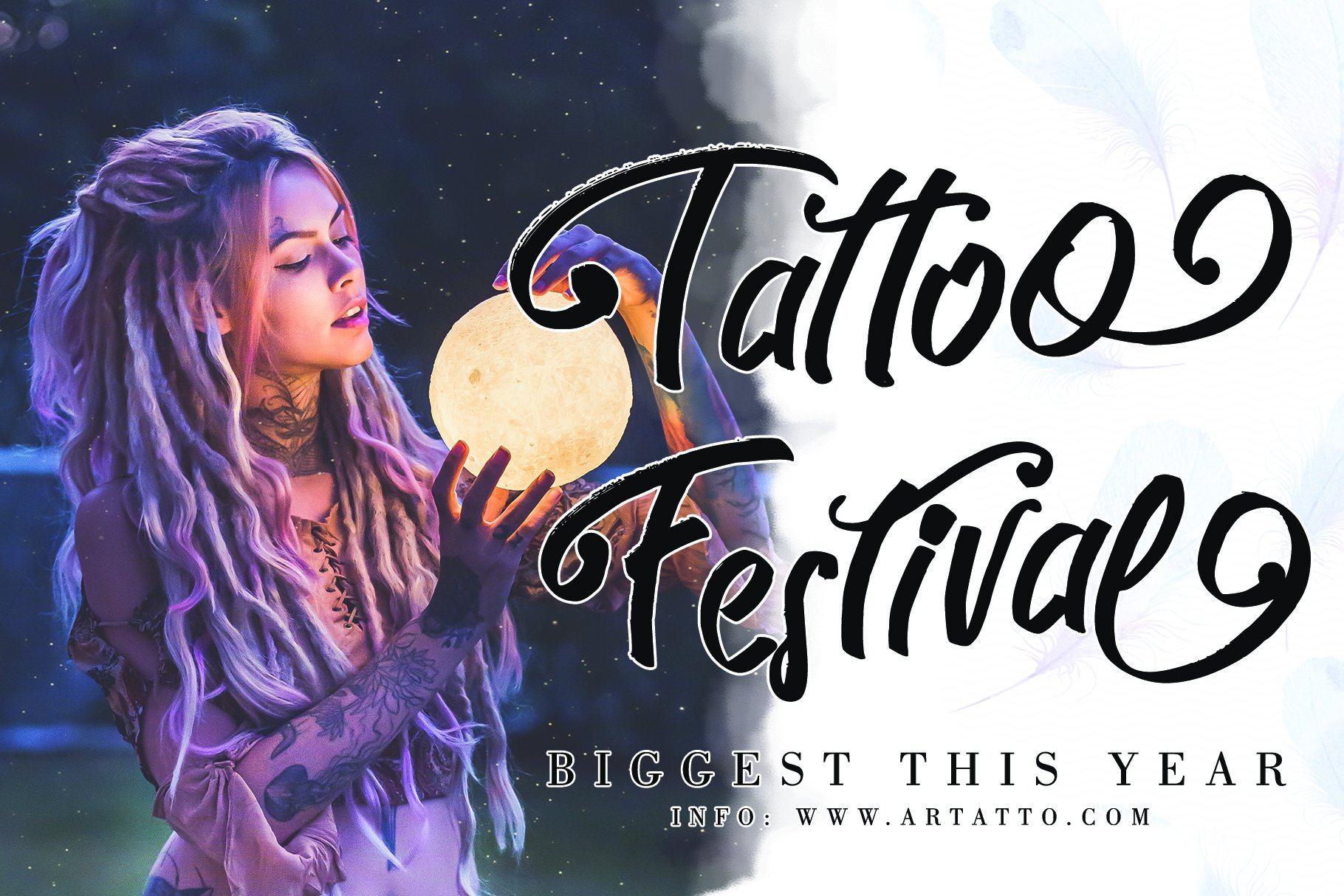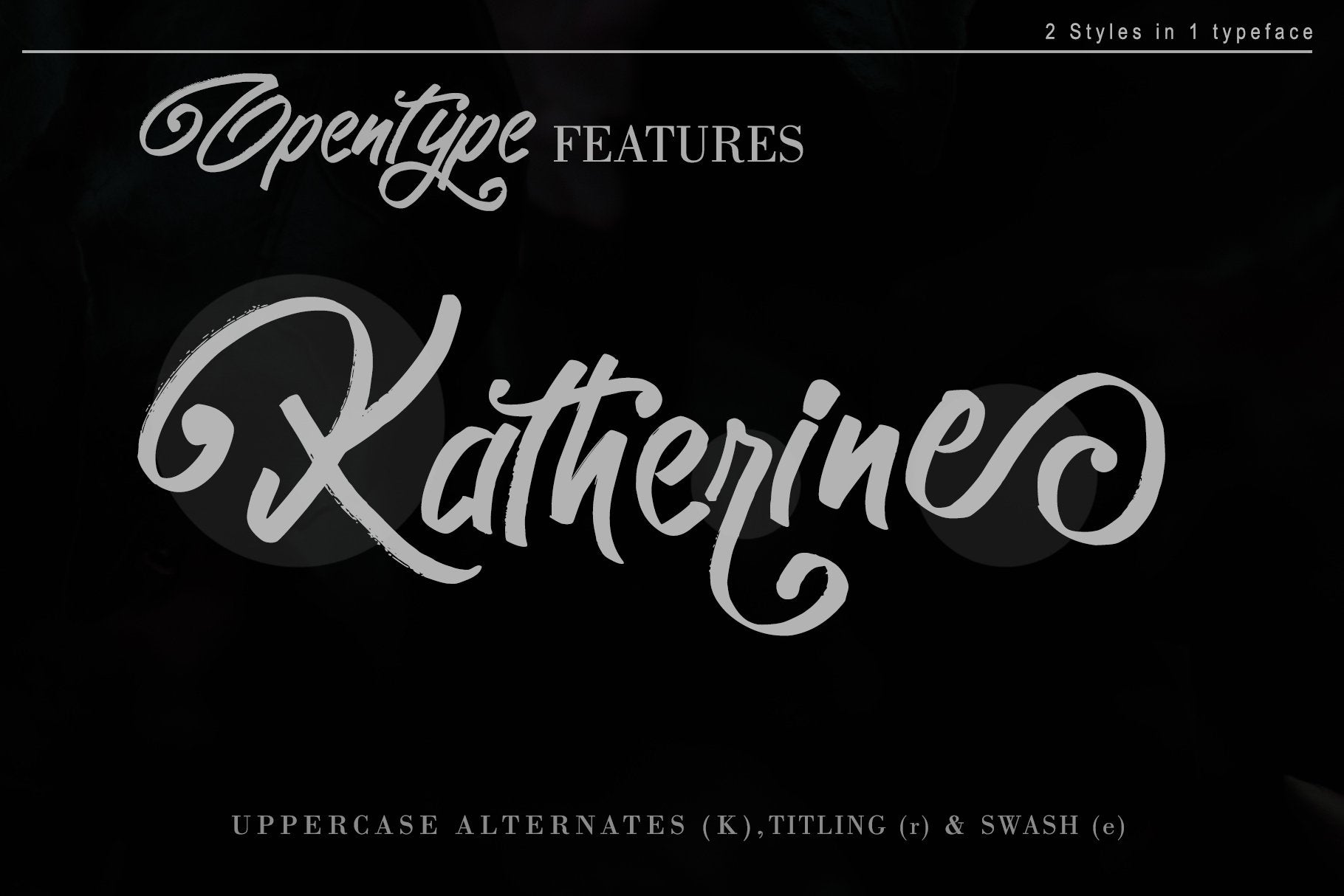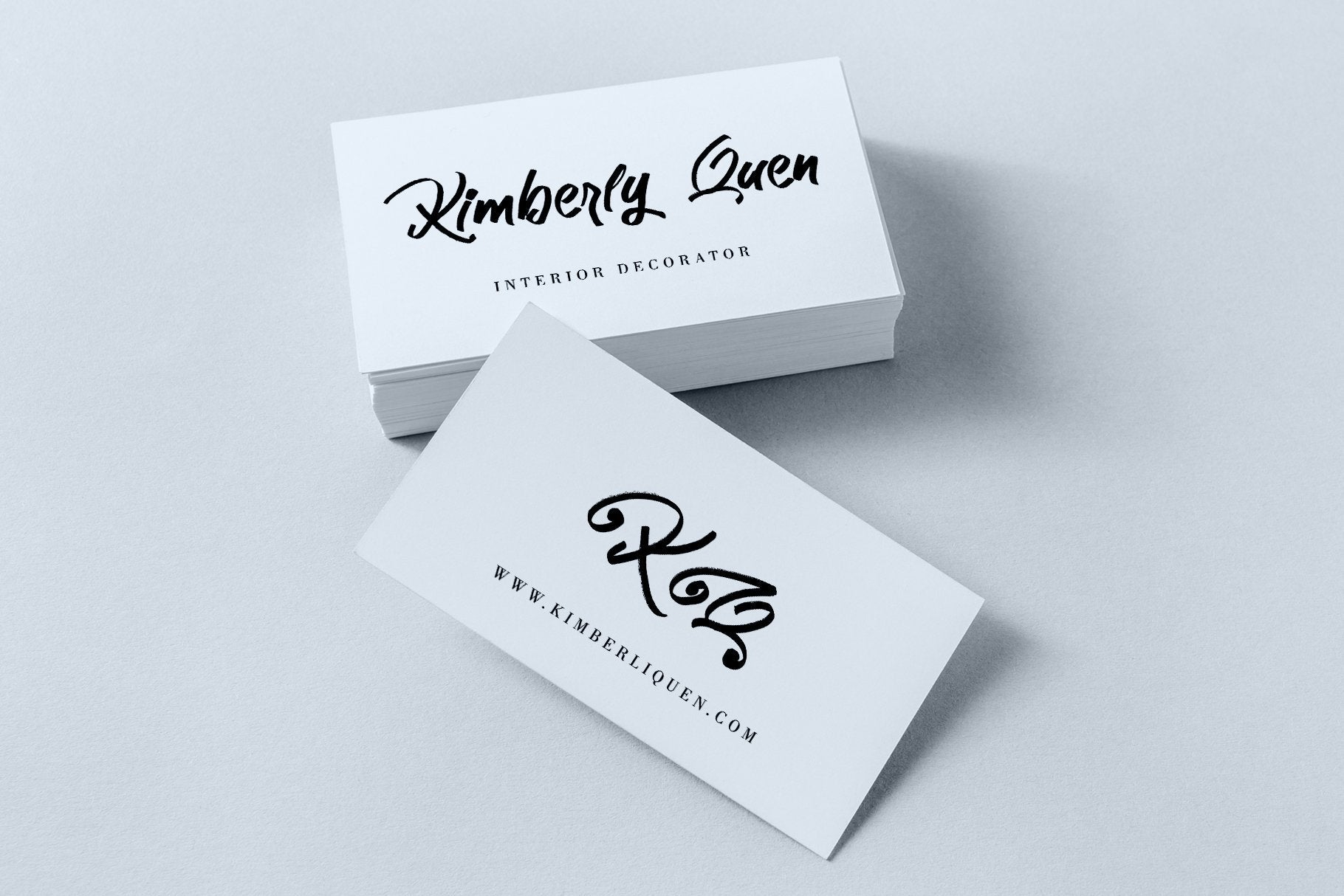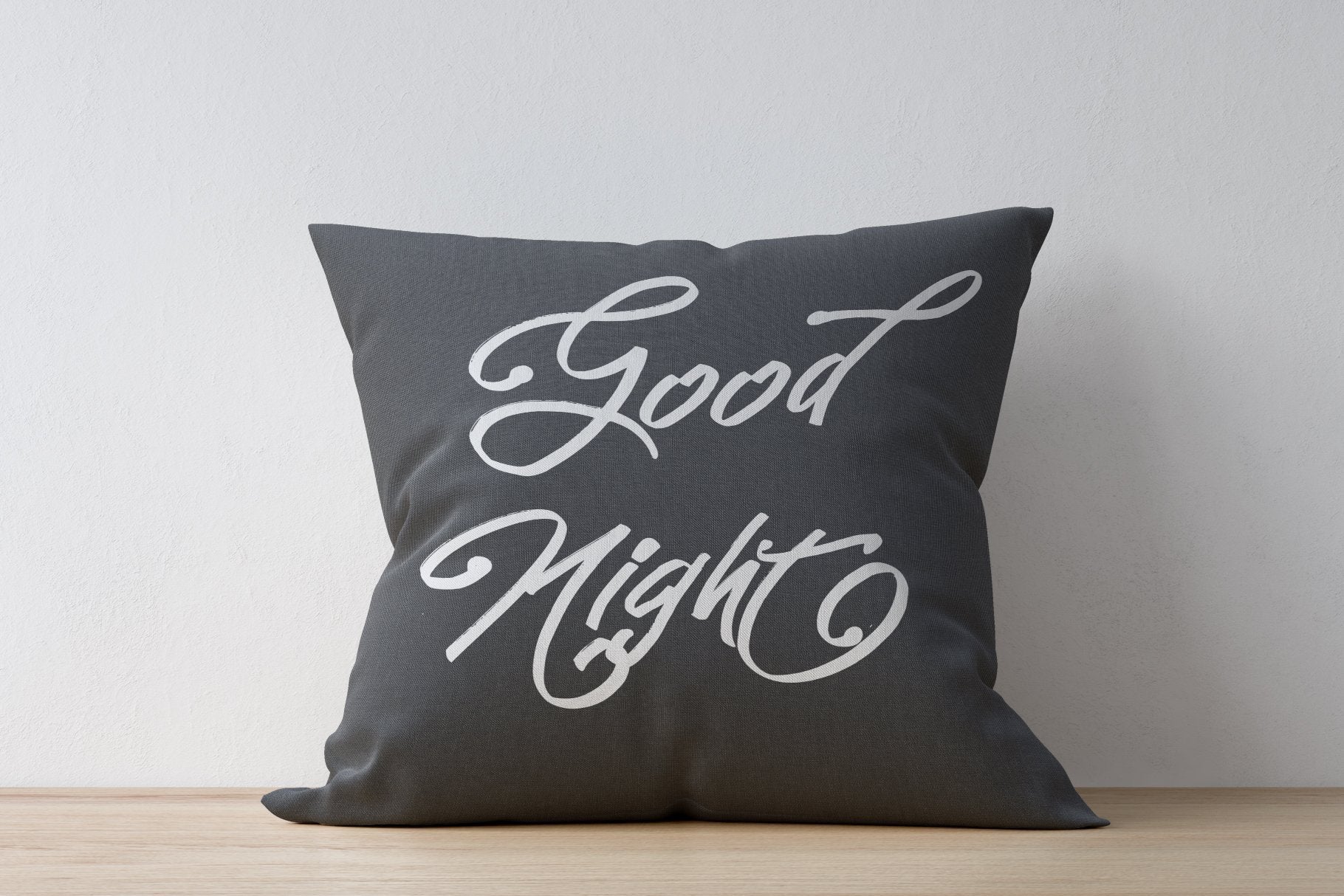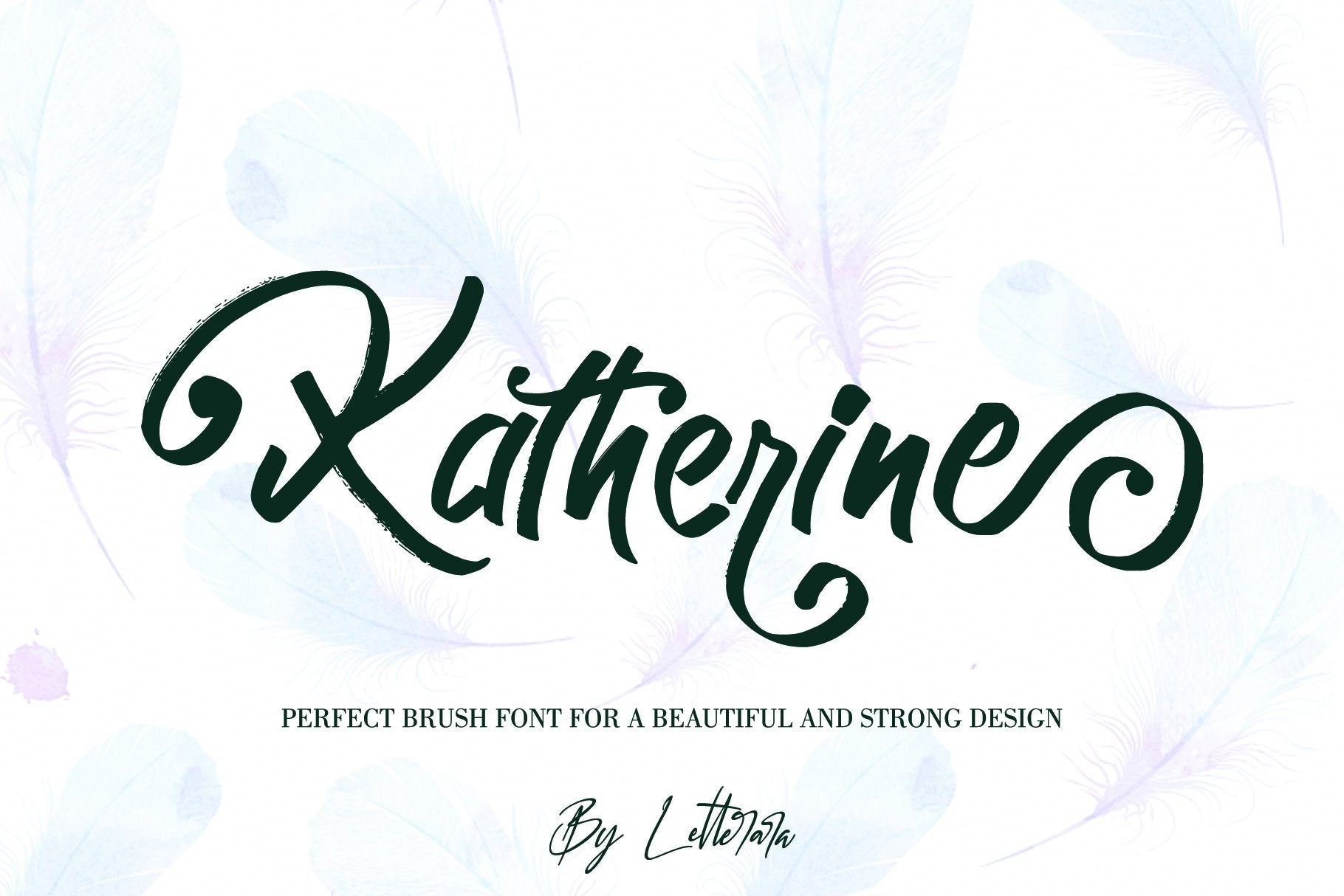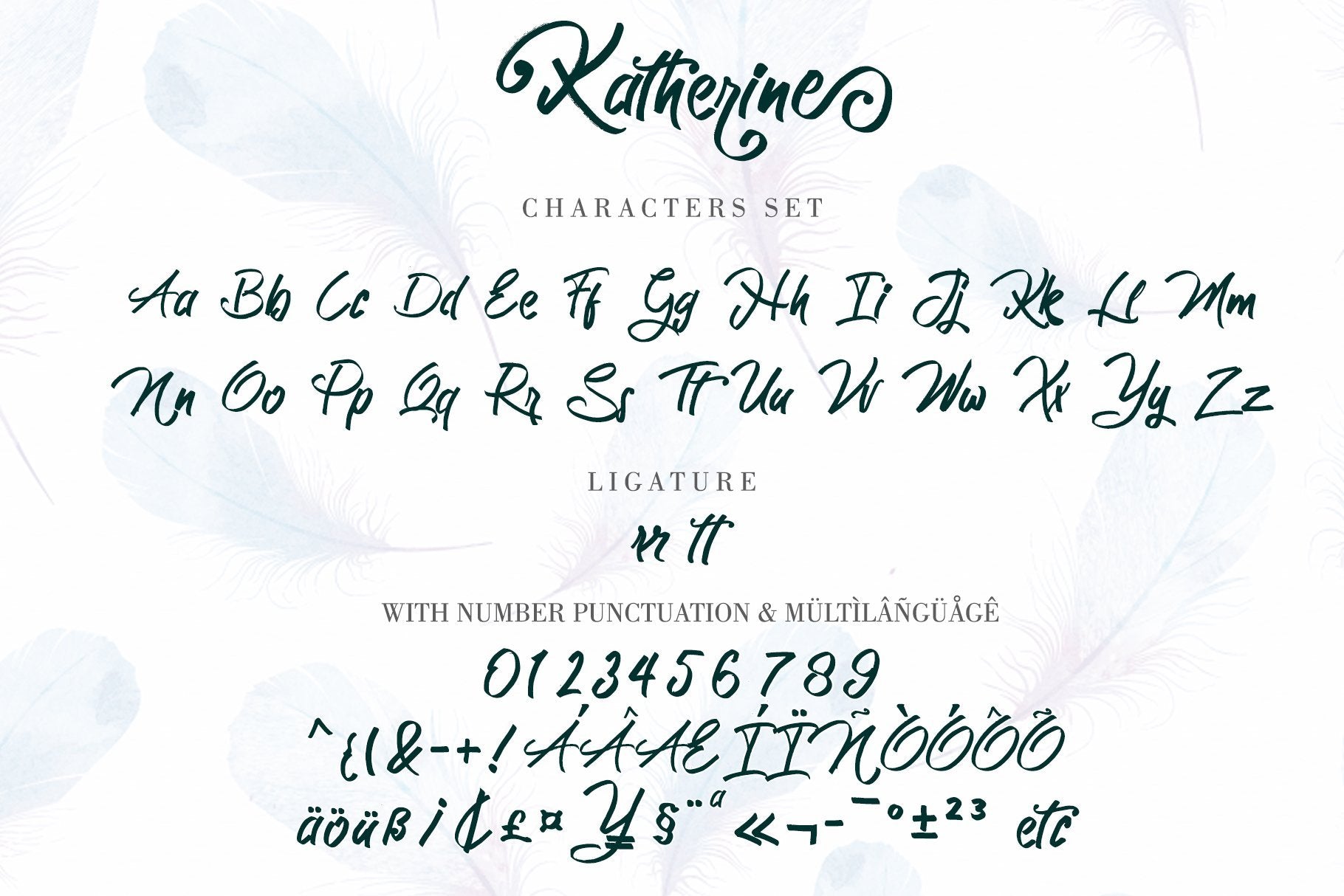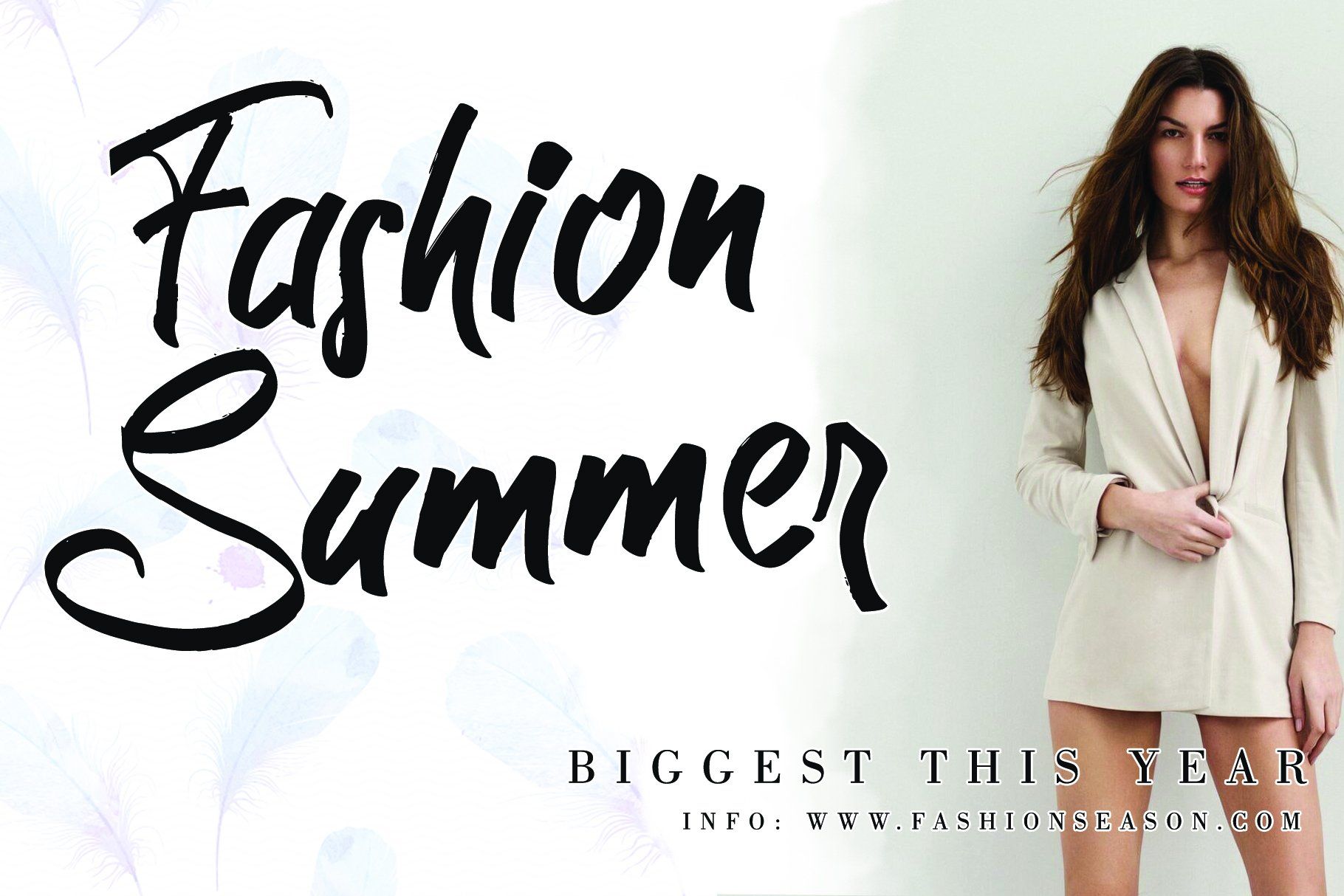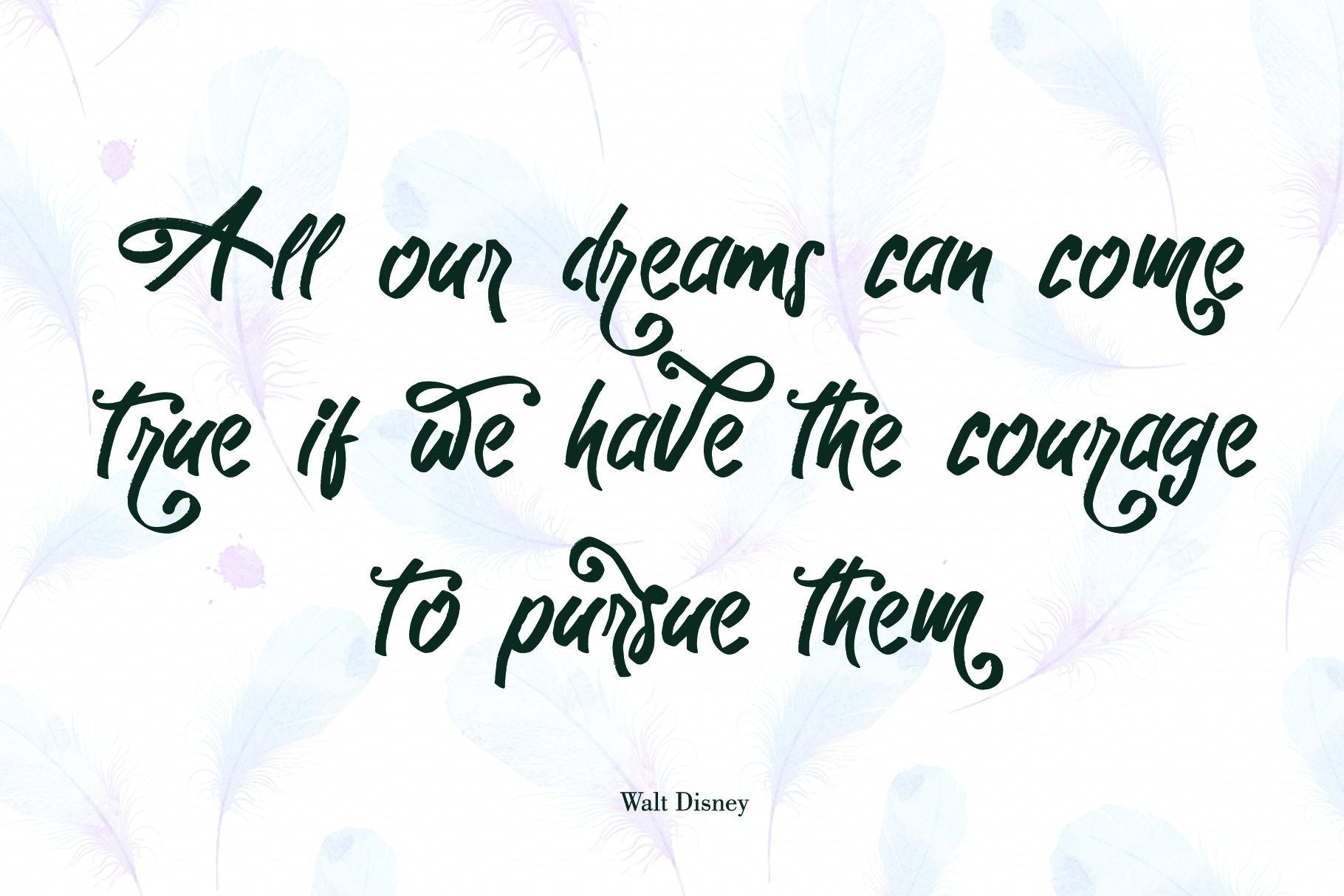
KATHERINE
About KATHERINE
Katherine is a textured brush font. It has a natural handmade look with an less regular baseline. Brush Stroke is suitable for title designs, invitations, books titles, stationery, quotes, branding and much more. Our other products : BEST SELLER BLACK PINK SIGNATURE ANDORA BRIGITTA SANTERIA HEANFFE GALGADOT EIFFEL IN LOVE ( FONT TRIO) SUMMER CHERRY BLACK PINK SUMMER ALLELUYA HONG KONG ANGEL MALEFICENT California Street ART MARIA BESTOWENS FAMILY ONLYONE